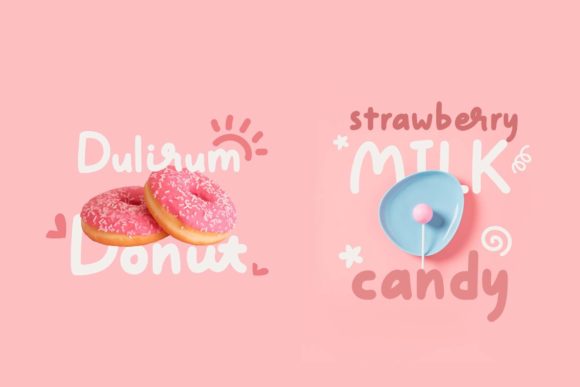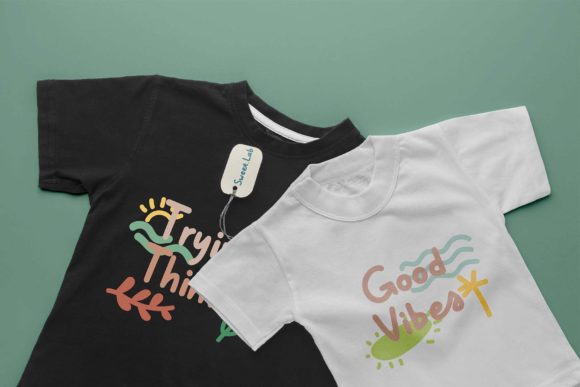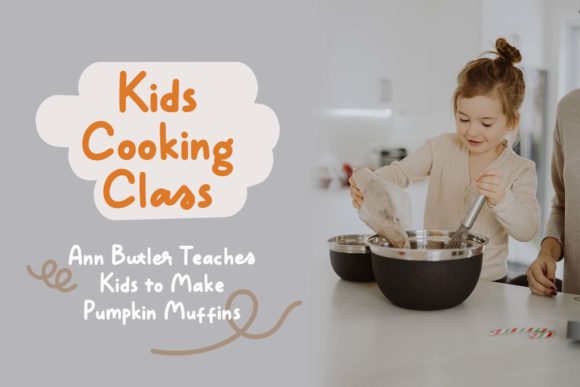
Introduction to Mojitos Font
Mojitos is a sweet and playful handwritten font.
It embodies playfulness and authenticity and is the perfect choice for any children activity or school project .
Key Features of Mojitos Font
Why Choose Mojitos Font?